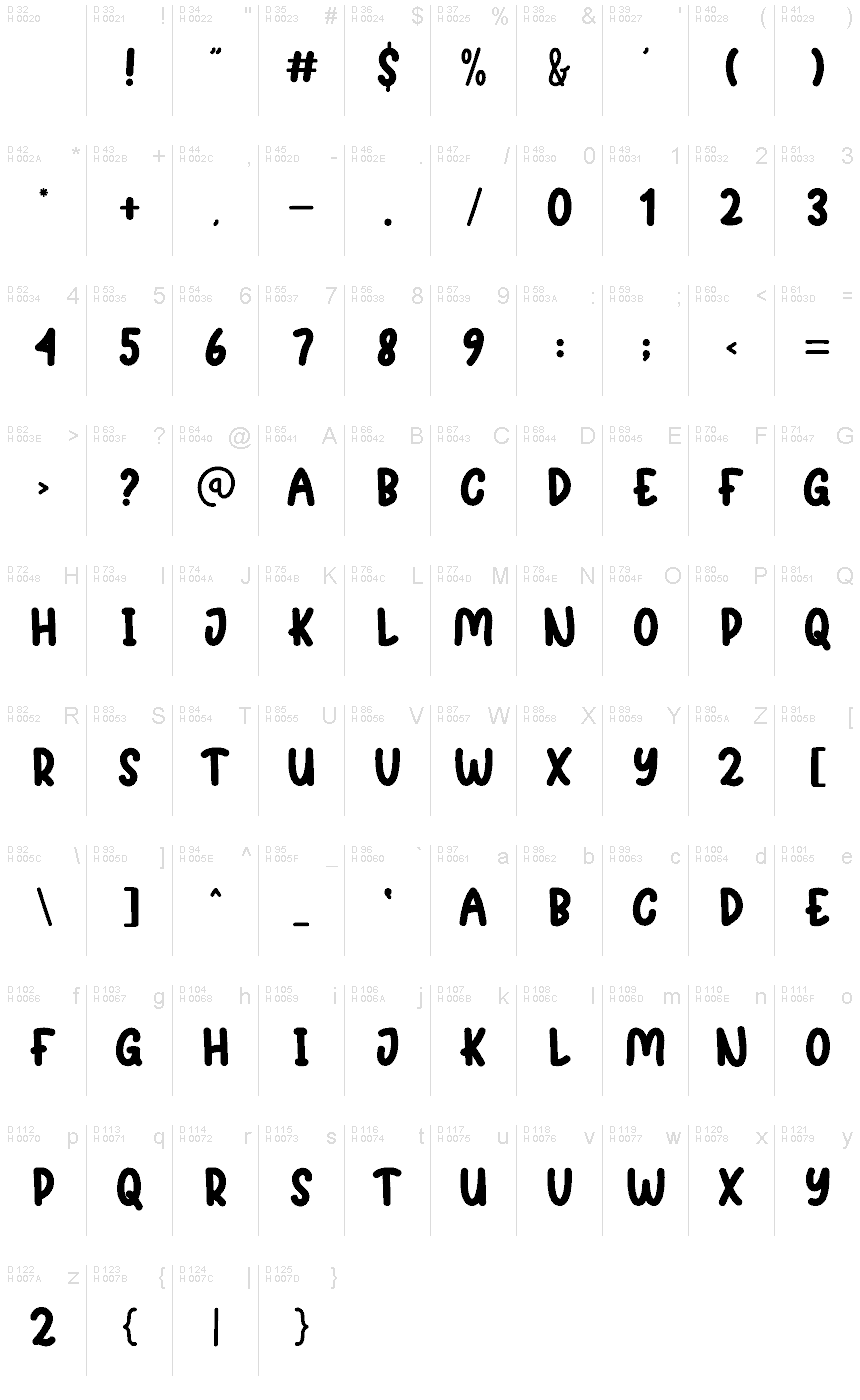
Cream Cheese
Cream Cheese font by Andi Moz is a whimsical, handwritten font inspired by retro styles. Rounded and friendly letters make up its character set which can certainly bring a casual and approachable feel to any design work. An even lighter look is accomplished through a variety of gentle visual touches for an endearing overall appearance.
All of the above qualities make this font perfect for packaging design, social media, headlines, food and drink shops, clothes stores, ads, invites, greeting cards, posters or book covers. This is your free handwritten font!